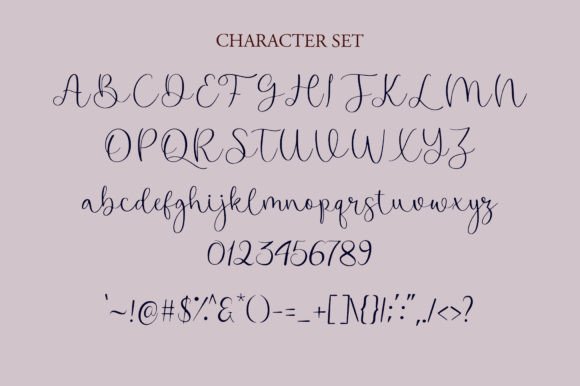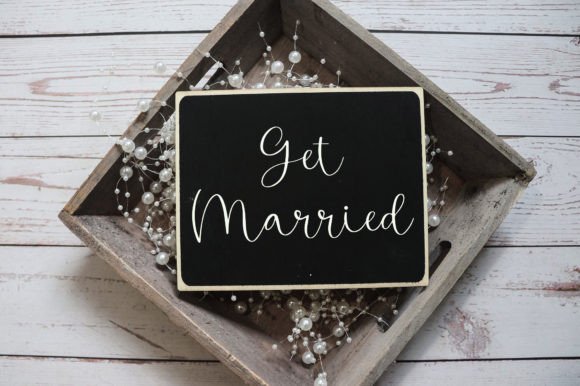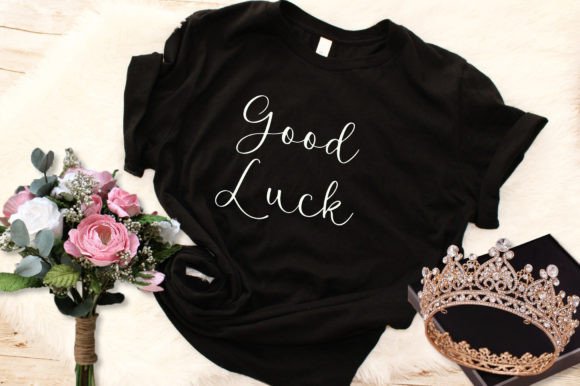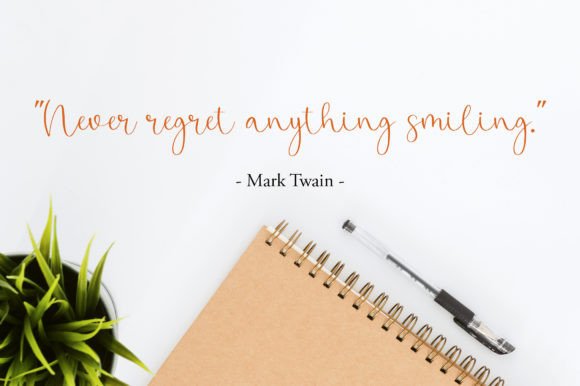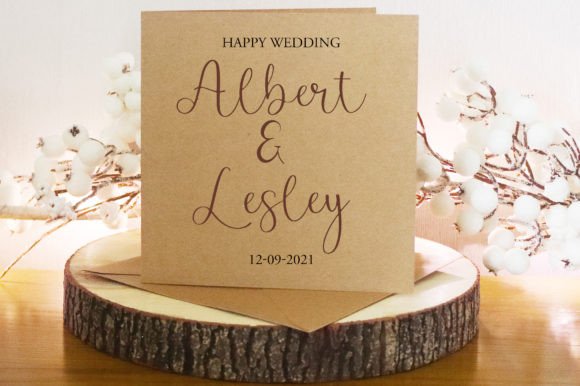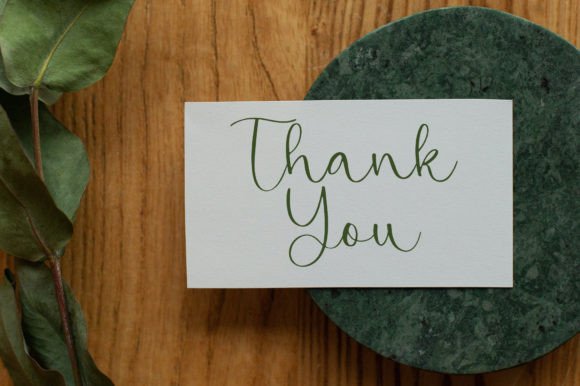
Sublimation Font
About Sublimation Font
“Sublimation” is a gracefully elegant and flowing handwritten font that exudes sophistication and charm. With its beautifully balanced characters, this font seamlessly complements a wide variety of design concepts. Incorporating “Sublimation” into your creative projects will breathe life into them, transforming your ideas into captivating visual experiences.
The allure of “Sublimation” lies in its delicate and elegant script style. Each character is meticulously crafted, exuding a sense of refinement and grace. This font is the ideal choice for a broad spectrum of design applications, offering versatility and timeless appeal.
Whether you’re working on invitations, branding materials, posters, logos, or digital content, “Sublimation” adds a touch of class and sophistication to your projects. It effortlessly enhances the aesthetics of your work, making it more visually appealing and captivating.
In the world of design, it’s essential to create an impact, and “Sublimation” excels in this regard. It elevates your projects, making them come alive with a sense of elegance and fluidity that captures the attention of your audience.
In summary, “Sublimation” is more than just a font; it’s a design asset that brings a level of delicacy and elegance to your work. It’s the perfect choice for projects where you want to convey sophistication and refinement, allowing you to create designs that leave a lasting impression. Embrace “Sublimation” and watch as your most creative ideas come to life with a touch of timeless elegance.